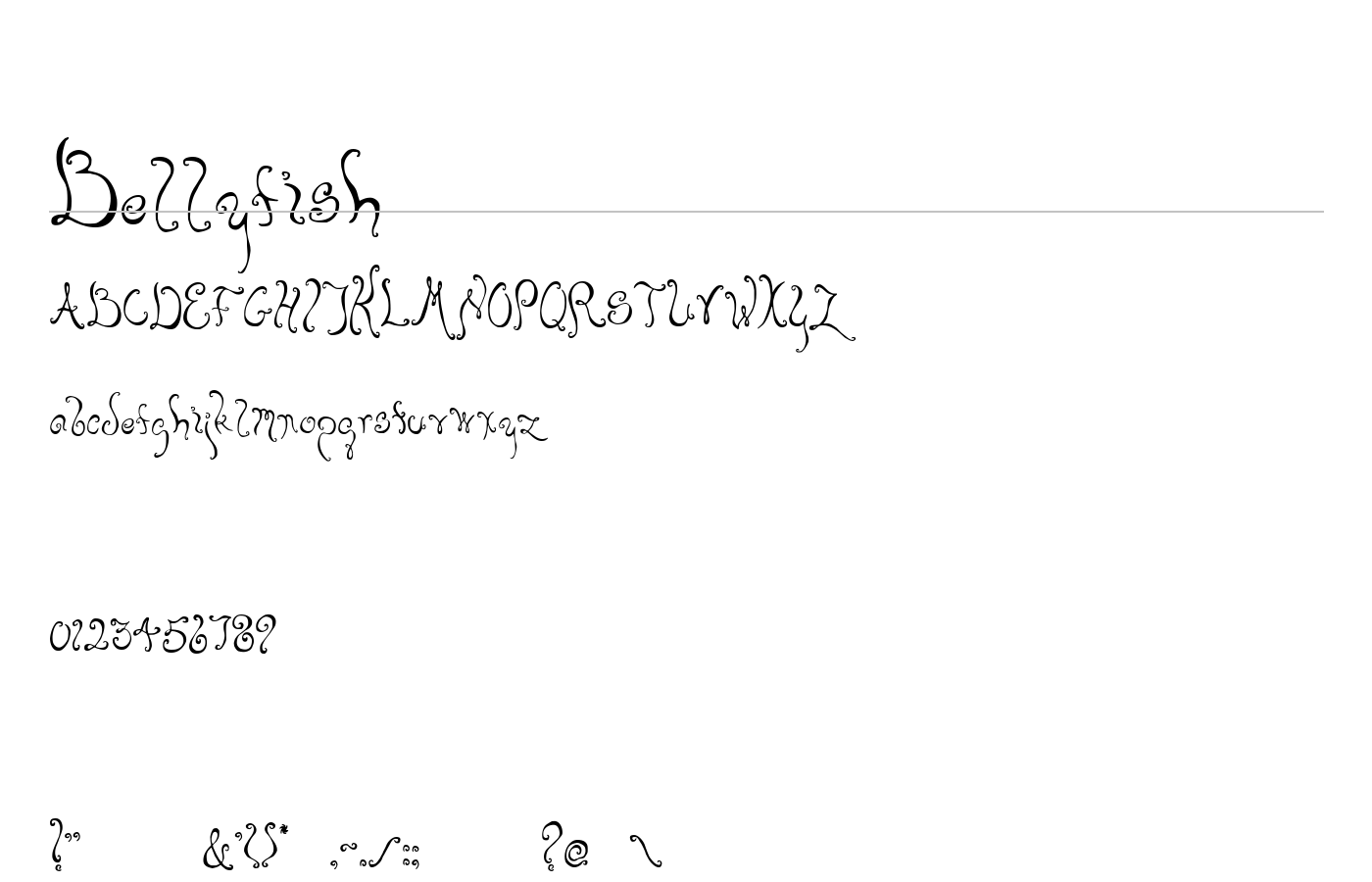
Bellyfish Font is a whimsical, decorative serif typeface with thin, delicate strokes and playful, curling terminals that give it a handwritten, artistic feel. Its narrow letterforms and elaborate details make it ideal for creative designs that need a touch of elegance and fantasy, such as invitations, logos, or titles, rather than body text. This font’s unique style adds charm and personality, making it perfect for projects that want to express creativity in a refined yet quirky way.
Bellyfish Font
About Bellyfish Font